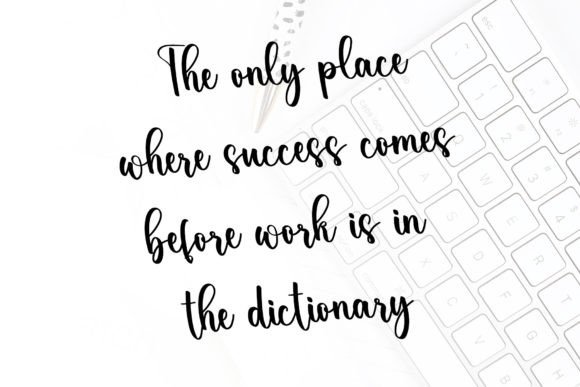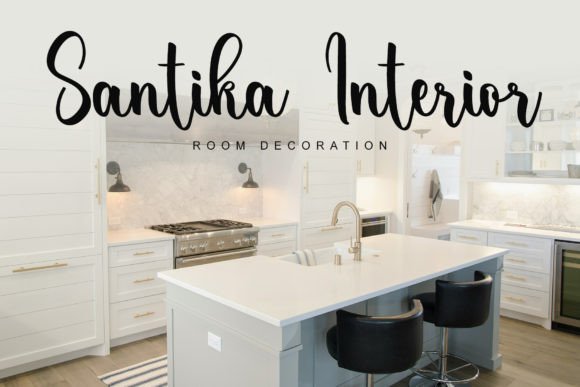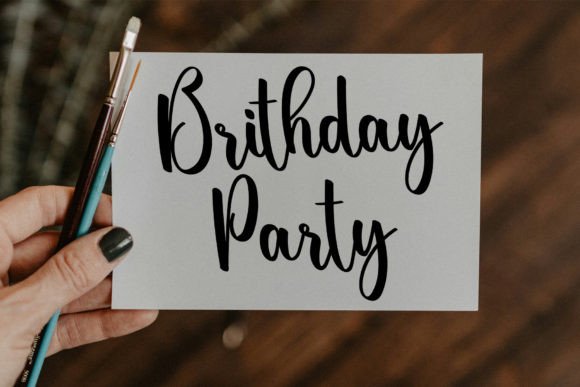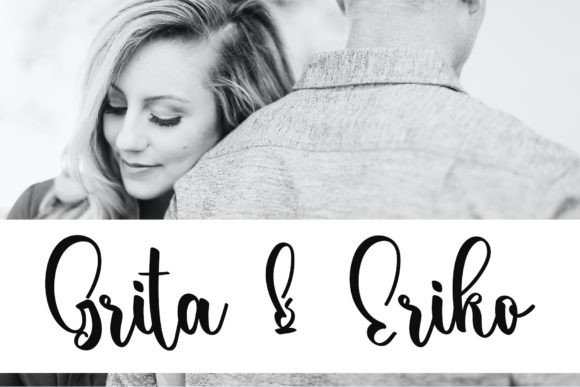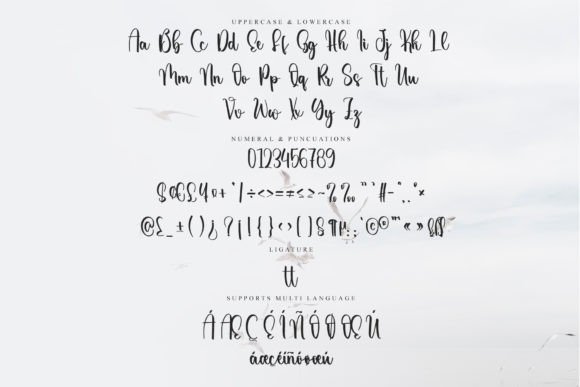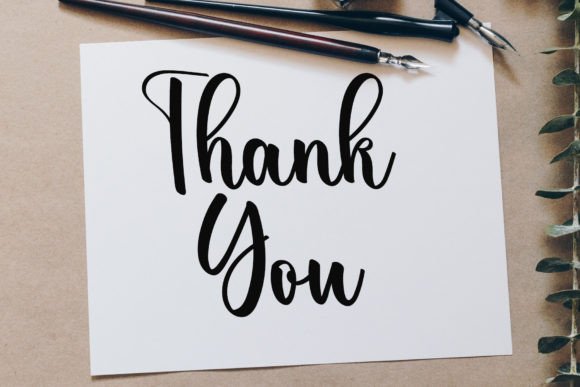
The Magic of Chandler Font: Adding Holiday Cheer to Your Designs
I still remember the year I was tasked with creating a festive holiday card for a client’s family gathering. I had a clear vision of what I wanted to achieve – a warm, inviting design that exuded the spirit of the season. But, as I began to work on the project, I realized that finding the perfect font was going to be a challenge. That’s when I stumbled upon Chandler Font, and it completely transformed my design. In this article, I’ll share my experience with Chandler Font, its features, and how to make the most of it in your designs.
An Honest Review of Chandler Font
Chandler Font is a festive and merry typeface that captures the essence of the holiday season. Here’s what I love about it:
- ✨ Festive and playful vibe that’s perfect for holiday designs
- ✅ Whimsical flair that adds a touch of enchantment to your words
- 🎉 Decorative elements that make your designs stand out
- 💻 Highly versatile and works well for various design projects, from greeting cards to gift tags
While Chandler Font is a fantastic addition to any design project, there are a few quirks to be aware of:
- 🤔 Limited use outside of holiday-themed projects – it might not be the best choice for more formal or corporate designs
- ⚠️ Some characters may appear a bit distorted at smaller font sizes
- Experiment with OpenType features, such as glyphs and stylistic alternates, to add more flair to your text
The Story Behind Chandler Font
Chandler Font was designed by a team of creatives who wanted to capture the magic of the holiday season in a typeface. Inspired by vintage holiday cards and decorations, they created a font that’s both festive and elegant. The font’s designer aimed to evoke a sense of nostalgia and wonder, making it perfect for holiday designs.
| Font Name | Chandler Font |
| Author | YanStudio |
| What type of designs is Chandler Font best suited for? | Chandler Font is perfect for holiday-themed designs, such as greeting cards, gift tags, and festive social media graphics. |
| Is Chandler Font available in different languages? | Chandler Font may not be available in all languages, but it does support a range of characters and glyphs. |